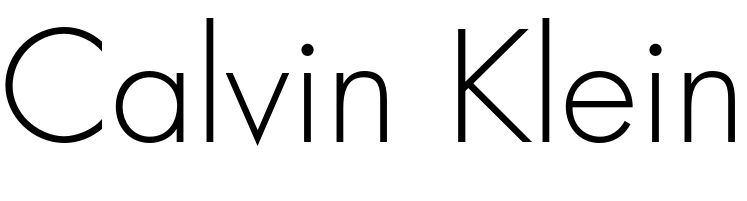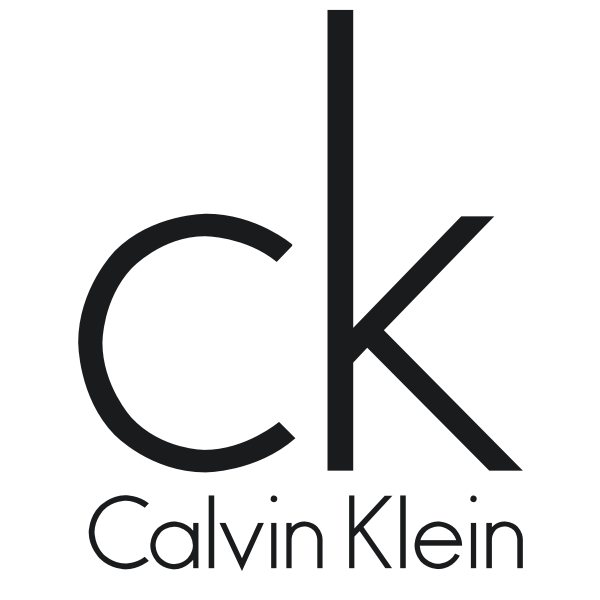
Calvin Klein Font
ApparelCalvin Klein is an American fashion brand founded in 1968 by Calvin Klein. The brand is known for its modern, minimalist aesthetic and offers a range of products including clothing, accessories, and home goods. A "CK" monogram and the word "Calvin Klein" are both present in the Calvin Klein logo.
The typography is remarkably close to a font called Futura Light except for the letter K. Futura Light is a commercial font and is available for purchase here.